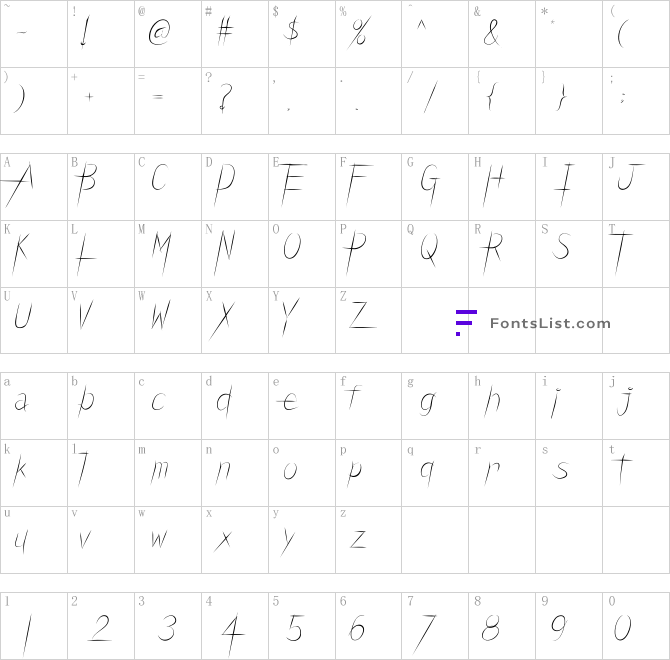
- Font Name:Carbon Blade
Carbon-Blade-Carbon-Blade.ttf is a very beautiful artistic font, Carbon-Blade-Carbon-Blade.ttf is widely used in the design and printing of various books and pictures,Carbon-Blade-Carbon-Blade.ttf has a strong visual impact,Carbon-Blade-Carbon-Blade.ttf is a commonly used font in newspapers, magazines and books, and is used in posters, e-commerce Poster design, store design, logo design, font design and other fields.Carbon-Blade-Carbon-Blade.